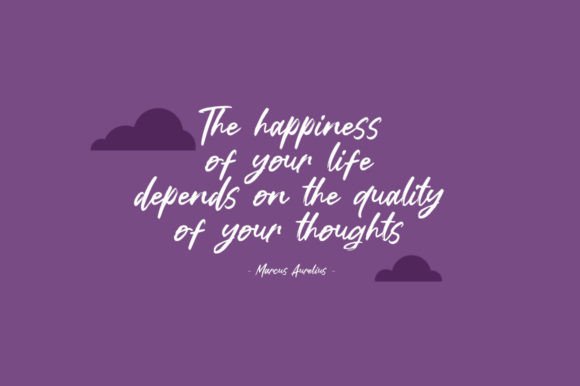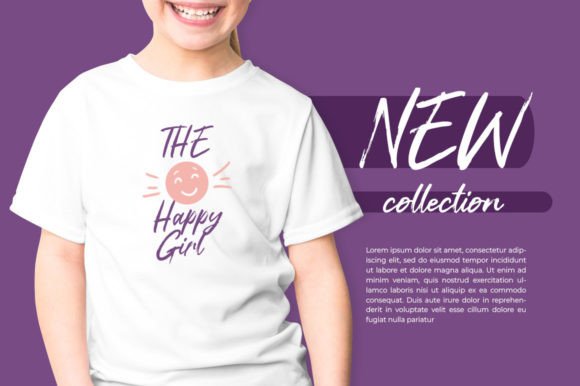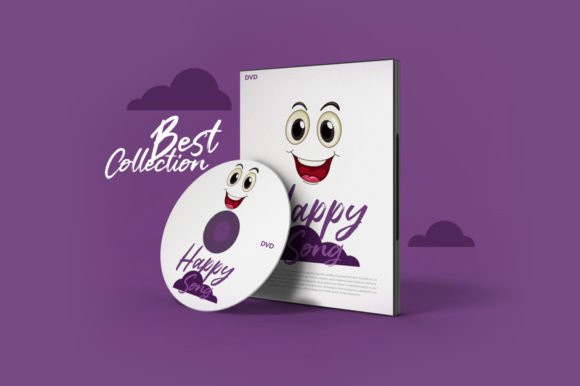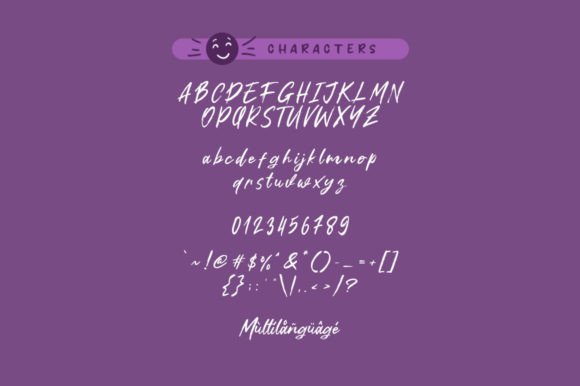
Introduction to Mauve Smile Font
Mauve Smile is a fun and cool brush script font.
Whether you use it for cartoon-related designs, childrenโs games, or just any creation that requires a playful touch, this font is the perfect choice for your designs .
Key Features of Mauve Smile Font
Why Choose Mauve Smile Font?
Mauve Smile Font offers exceptional quality and versatility, making it a valuable addition to your design toolkit. Whether you’re creating for personal projects or commercial use, Mauve Smile Font delivers professional results.